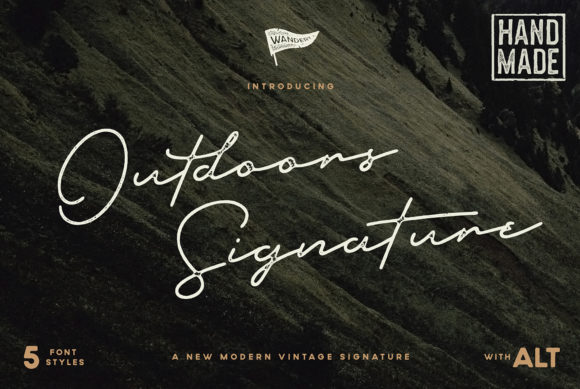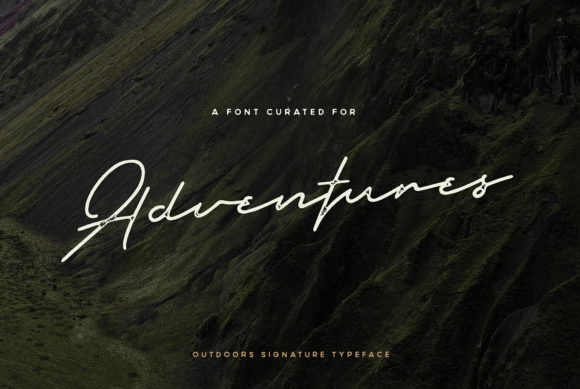
Outdoors Signature Font
db-ku.com - Script & Handwritten -- Outdoors Signature is a beautiful and vintage script font. It comes in 5 styles: Outdoors Clean, Outdoors Signature Rough, Outdoors Signature Rust, Outdoors Halftone and Outdoors Signature Stamp.